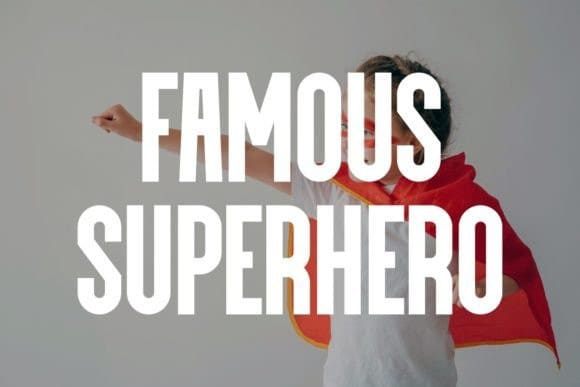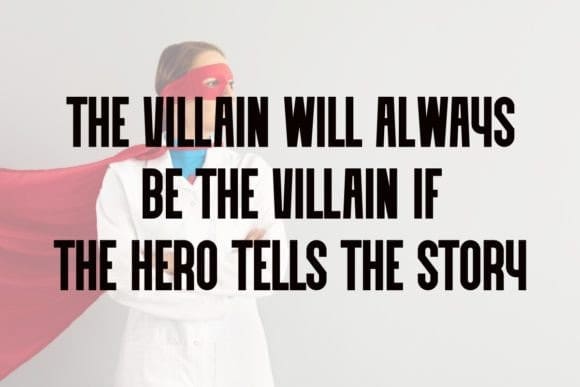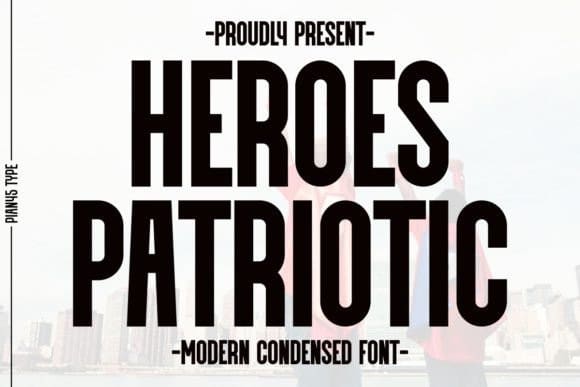
Heroes Patriotic Font
Heroes Patriotic Font is a bold and clean sans serif font inspired by the theme of heroism. This font combines modern aesthetic with a strong, powerful presence, making it ideal for conveying messages of valor and pride. Perfect for posters, backgrounds, headlines, quotes, t-shirts, tote bags, wall arts, mugs and pillows.